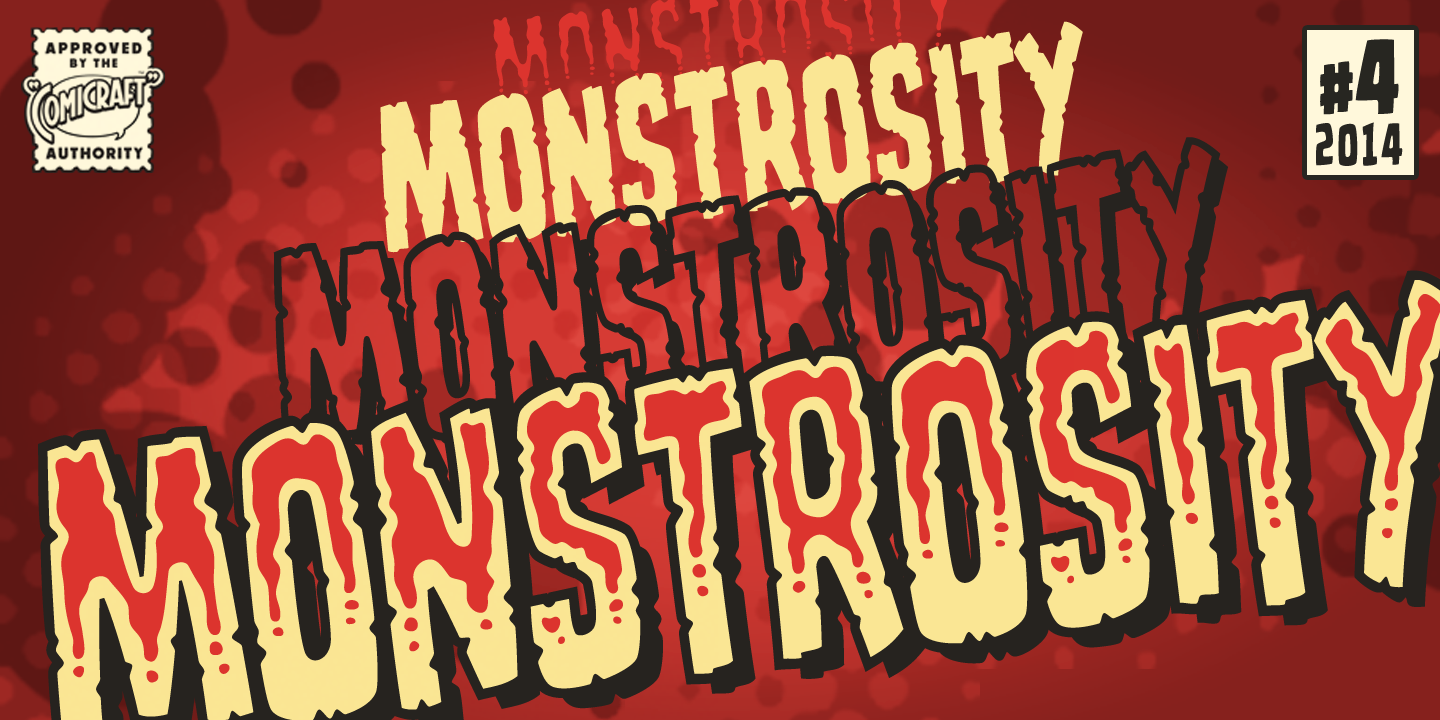
Please note, to use this font for commercial purposes, you must purchase the full version. Monstrosity is a bold, creepy, and unique font designed to make a statement. Perfect for Halloween-themed designs, horror posters, event invitations, and branding projects that need a spooky and dramatic look, this font captures the essence of eerie excitement. Whether you're working on a haunted house flyer, a creepy logo, or a horror movie poster, Monstrosity adds a chilling and distinctive flair to your work. Test it out and enjoy free download access for personal use. Experience the terrifying style of Monstrosity Font Free Download before purchasing the commercial license. Add a monstrous touch to your designs with Monstrosity.